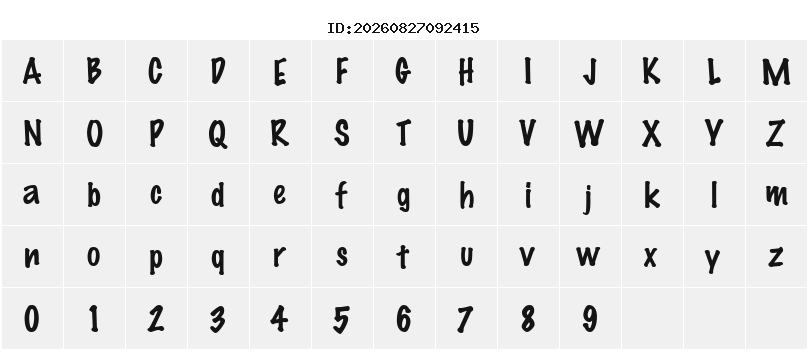
380-CAI978 Preview
• Font Name: 380-CAI978
• Font ID: 380-CAI978:Version 1.00
• Full Font Name: 380-CAI978
• Version: Version 1.00 April 11, 1992, initial release
• PostScript Name: 380-CAI978
• Character Count: 101
About 380-CAI978.ttf
380-CAI978.ttf is a modern, elegant sans-serif font designed for ultimate readability and visual harmony. Perfect for branding, headlines, web design, and print materials.